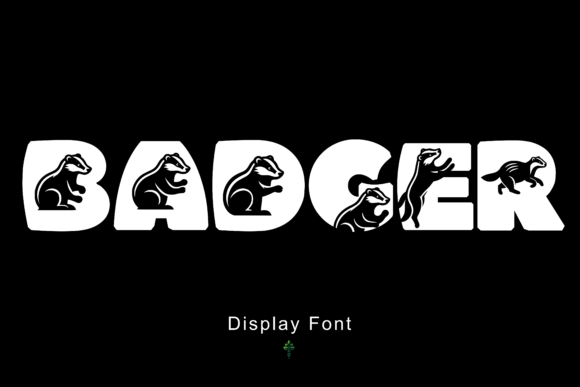
Enter the Badger Font, a masterfully crafted typographic marvel that’s about to become your new best friend. This exceptional font is designed to unleash the vibrant energy of your projects, combining meticulous precision with awe-inspiring unpredictability. Whether you’re working on a logo, a brochure, or a website, the Badger Font is the perfect companion to bring your creative vision to life.
Badger Font Key Features
- Font Family: Badger Font is a sans-serif font family designed for digital use.
- Unique Characteristics: Badger Font features a distinctive geometric shape, clean lines, and a modern aesthetic, making it ideal for contemporary designs and branding.
- Character Set: Includes a comprehensive set of characters, including Latin, Cyrillic, and Greek scripts, as well as punctuation and symbols.
Designer Review: Badger Font
First off, I’d like to say that I’m a fan of the quirky charm that the Badger Font brings to the table. ✨ The unique, hand-drawn aesthetic is undeniably eye-catching and can add a touch of personality to any project. ✨ I also appreciate the extensive character set, which includes a wide range of glyphs and symbols.
- Customizability: The font offers a range of weights, from light to bold, which allows for a good deal of flexibility in terms of design.
- Legibility: The font is generally easy to read, even at smaller sizes.
However, I do have a few concerns. ⚠️ The font’s limited language support may be a issue for designers working on projects that require multiple languages. Additionally, the bold weight can be a bit too bold at times, making it difficult to use in certain contexts.
Overall, I think the Badger Font is a solid choice for designers looking to add a bit of whimsy to their projects. While it may not be the most versatile font out there, its unique charm and extensive character set make it a worthwhile option.
Badger Font: A Practical Application Guide
The Badger Font is ideal for outdoor and nature-themed designs, such as:
Wildlife conservation posters
Nature-inspired greeting cards
Outdoor apparel and merchandise